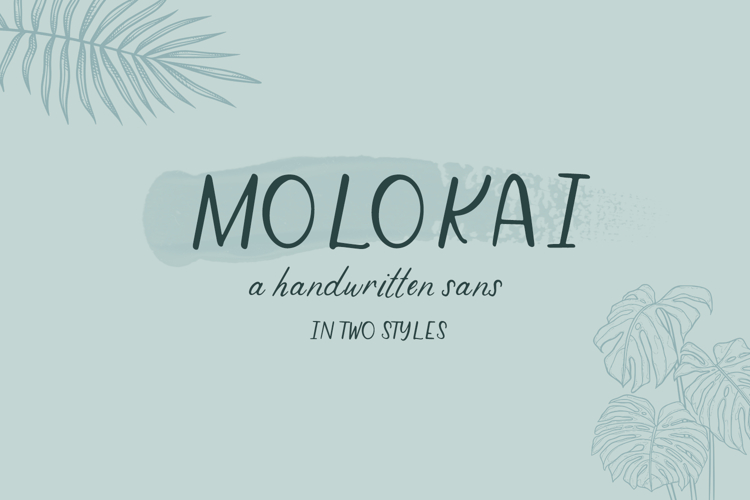
Meet Molokai, a relaxed handwritten font duo. Molokai includes regular and italic versions, which can be used individually or paired together for a lovely cohesive look.
Molokai Sans is best for:
- website design + website accents requiring a legible handwritten touch
- labels & product packaging
Molokai includes:
- upper and lowercase characters